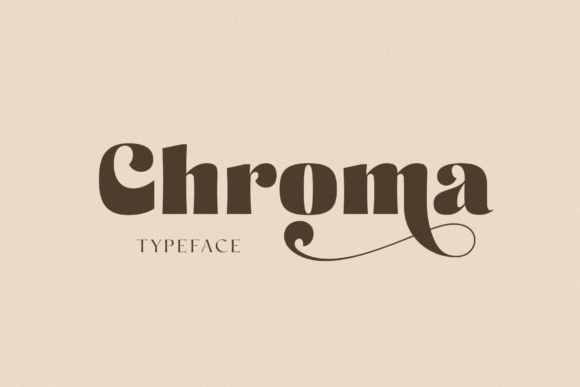
Meet Chroma Font, the display font that exudes boldness and coolness, designed by the renowned Pasha Larin. With its PUA encoding, accessing glyphs and swashes becomes a breeze, granting you the freedom to craft spectacular designs effortlessly.
Immerse yourself in the infinite possibilities offered by Chroma Font's versatile style. Its captivating aesthetics and dynamic presence transform your projects into visually stunning masterpieces. Embrace the boundless creativity it unlocks and leave an unforgettable impact on your audience.
Elevate your Instagram presence with Chroma Font's captivating charm. It's the perfect choice for username customization, allowing you to stand out from the crowd and make a lasting impression. Unleash your creativity and let Chroma Font amplify your online identity.
With its user-friendly interface, Chroma Font seamlessly integrates into your design workflow, empowering you to create stunning designs with unparalleled ease. Its versatility shines in logos, branding, posters, social media graphics, and beyond. Experience the transformative power of Chroma Font and redefine your creative boundaries.
Chroma Font is more than just a font; it's an artistic expression that ignites your imagination. Its bold and cool aesthetics evoke emotions and add depth to your designs, leaving a lasting impression on your audience.
Don't settle for ordinary fonts. Embrace the extraordinary with Chroma Font. Transform your creative vision into reality and leave an indelible mark on the world. Join the countless designers and artists who have been captivated by Chroma Font's allure and experience the difference it brings to your projects.